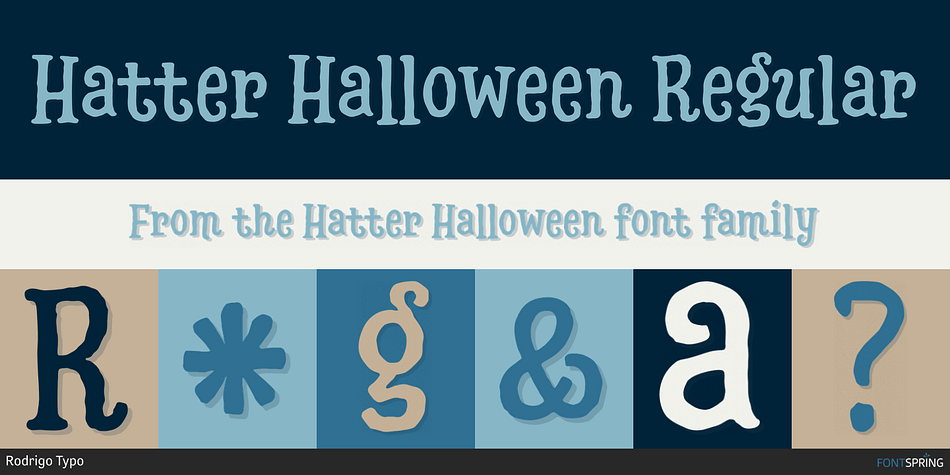
Hatter Halloween Regular
Designed by Andrey Kudryavtsev, Rodrigo Salas and Franco Hernández, Hatter Halloween is a multiple classification font family. This typeface has twelve styles and was published by Rodrigo Typo.
Hatter Halloween, is an extension of After, which includes ligatures, Extrude, Swash, Layers and contains entertaining Dingbats for Halloween parties or on horror themes.
Foundry Rodrigo Typo
Styles Display Serif, Novelty
Designers Andrey Kudryavtsev, Rodrigo Araya Salas, Franco Jonas Hernández